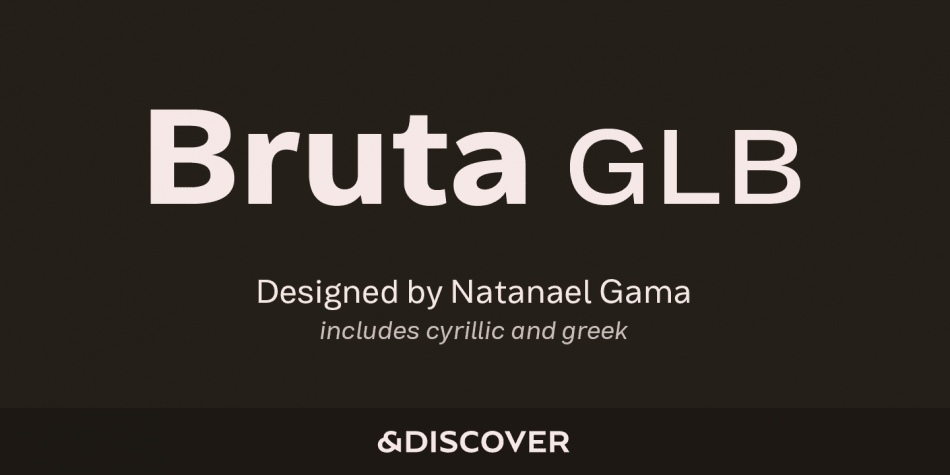
Bruta Global Font
Bruta Global Font is perfect for branding, editorial headlines, website headings, social media graphics, and poster designs. Its bold and modern style makes it ideal for creating strong visual impact in any project.
What makes Bruta Global Font exciting is its clean, geometric letterforms that combine readability with a contemporary edge. The font’s striking design ensures your text stands out with confidence and style.
The Bruta Global Font family includes Regular, Bold, Italic, and Extended variations, offering designers flexibility to create cohesive and dynamic typographic compositions.